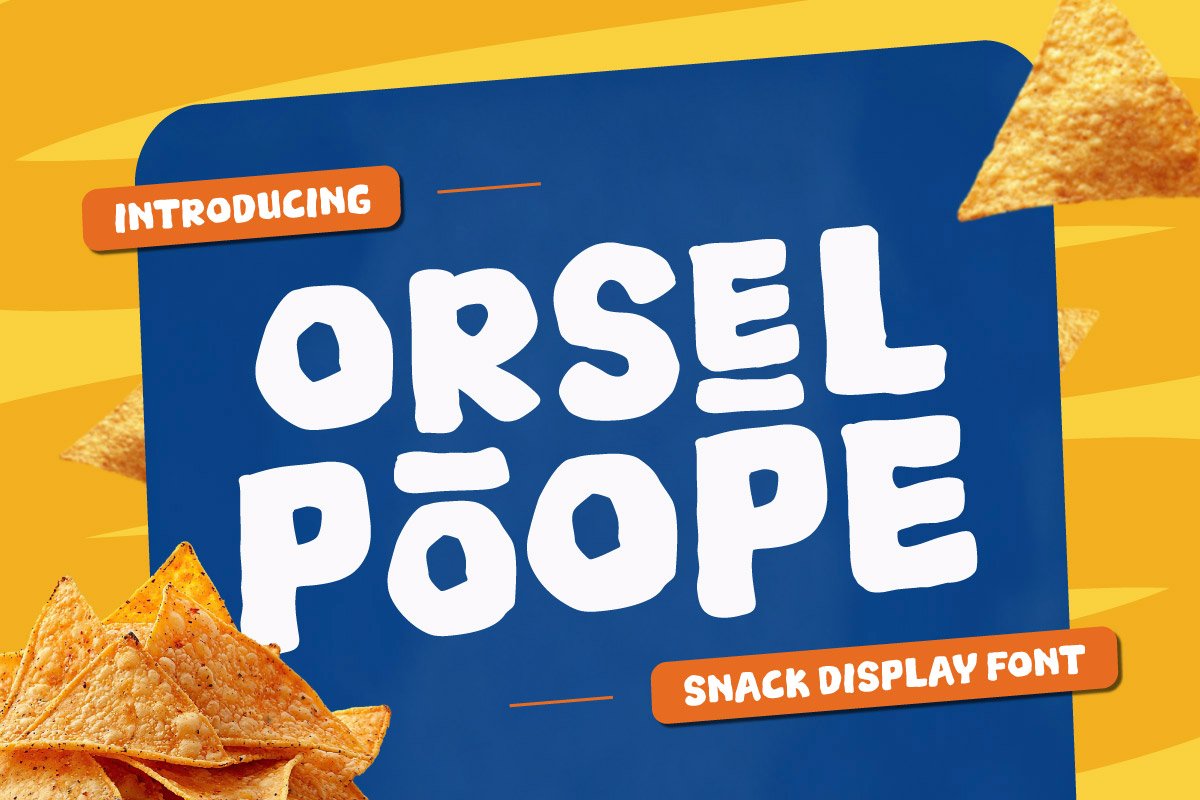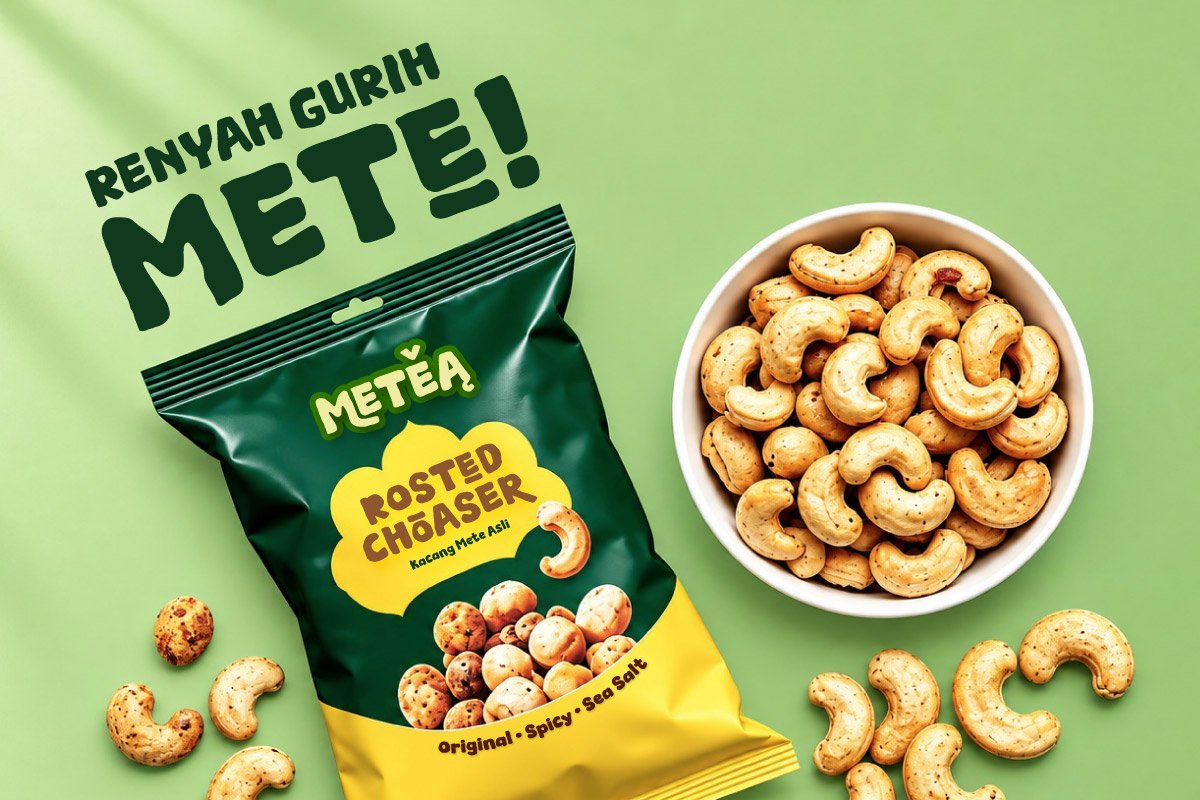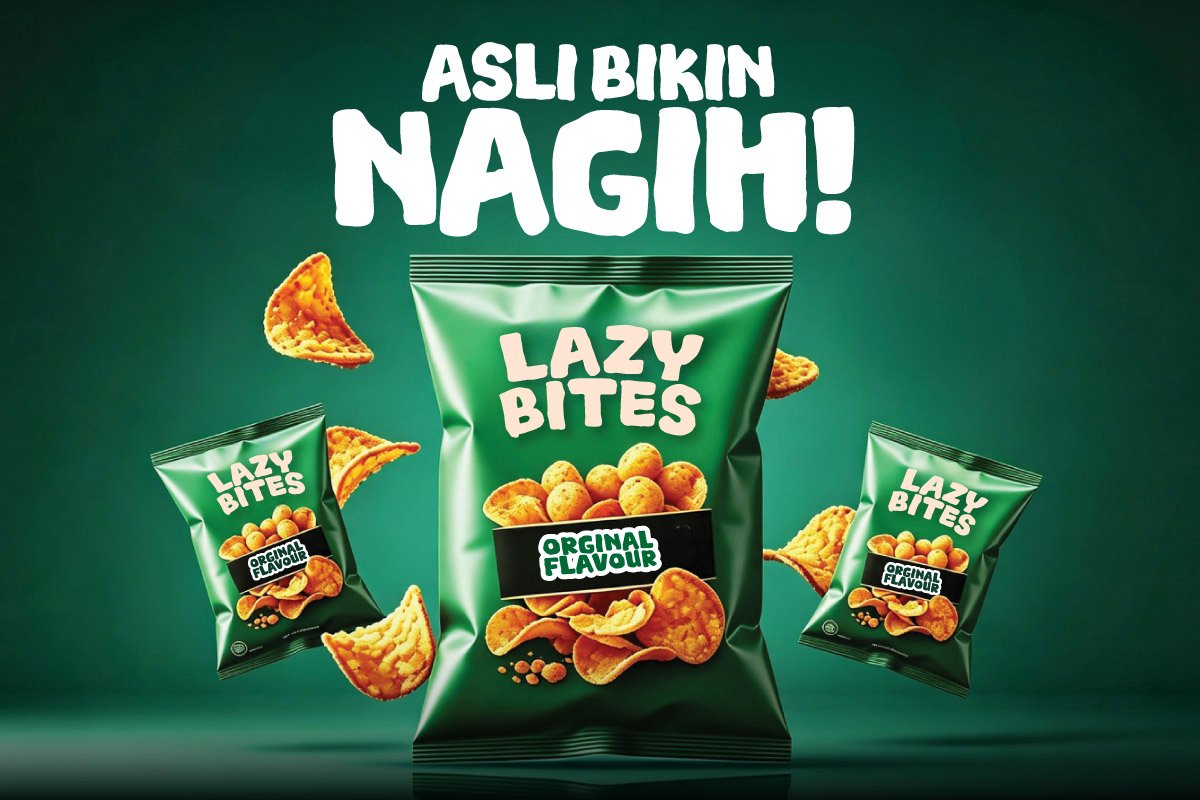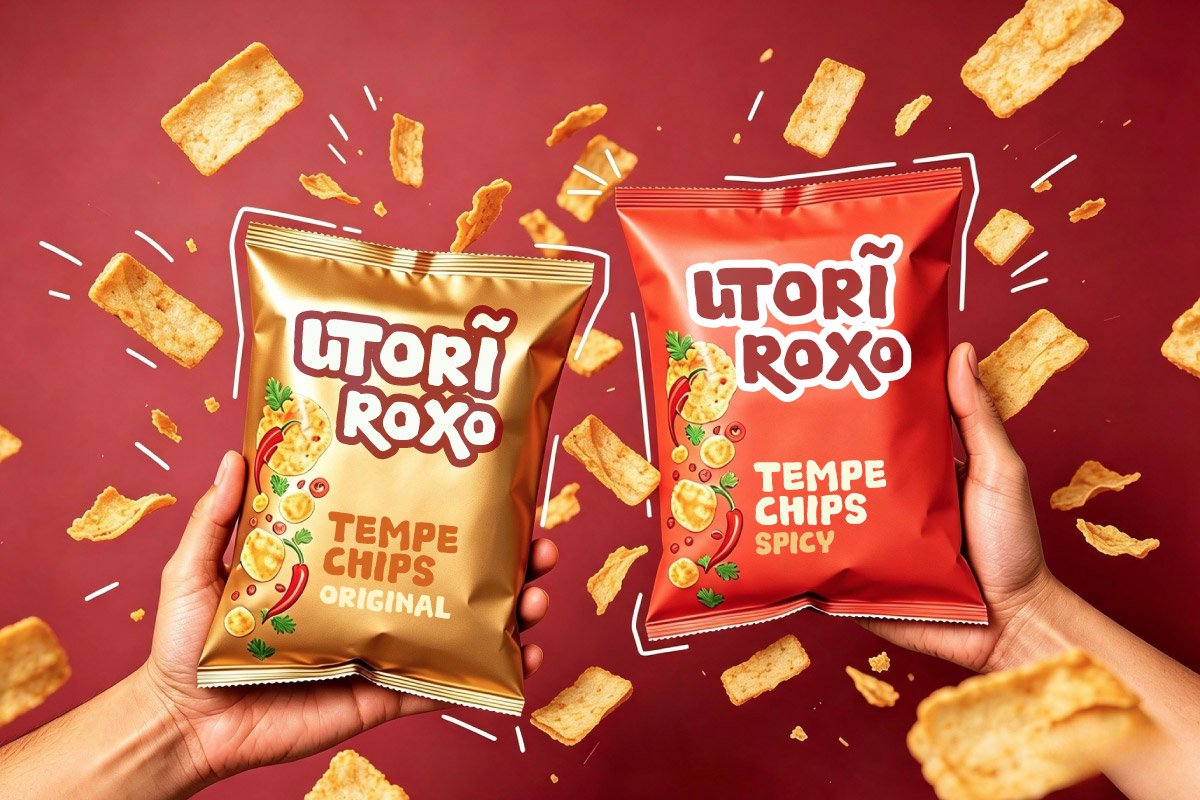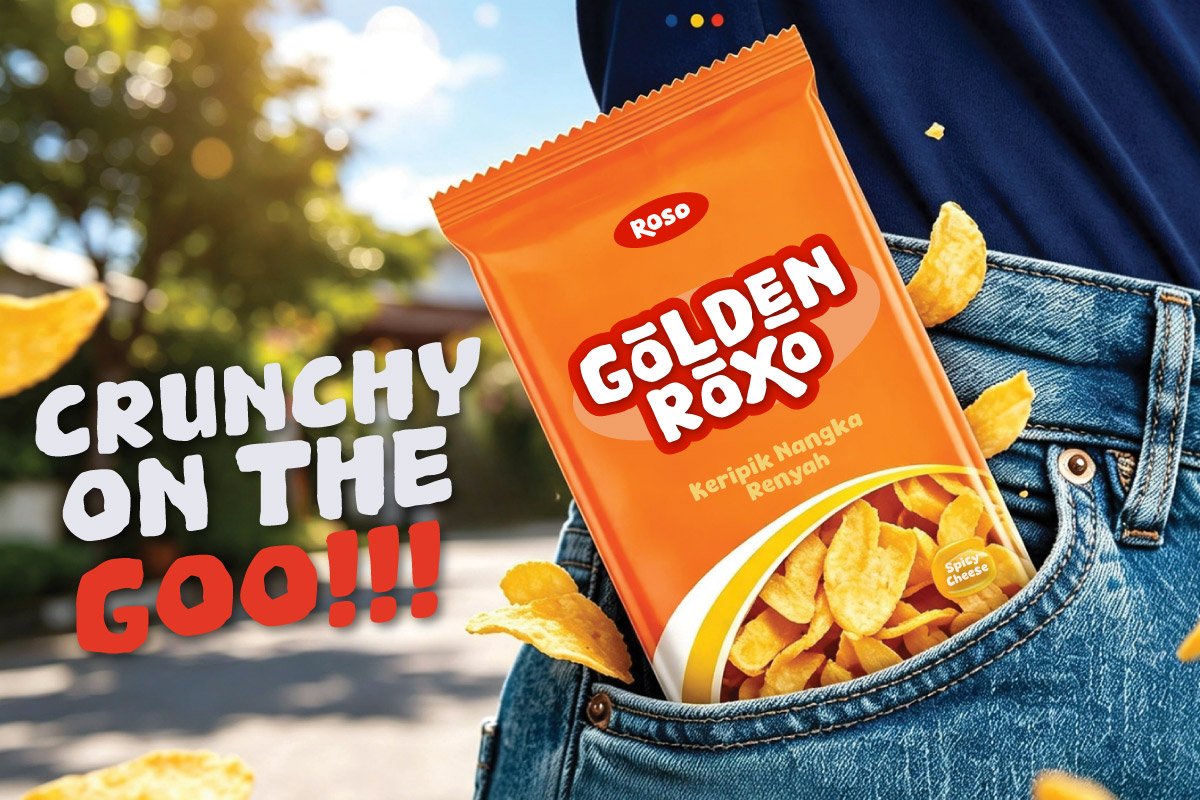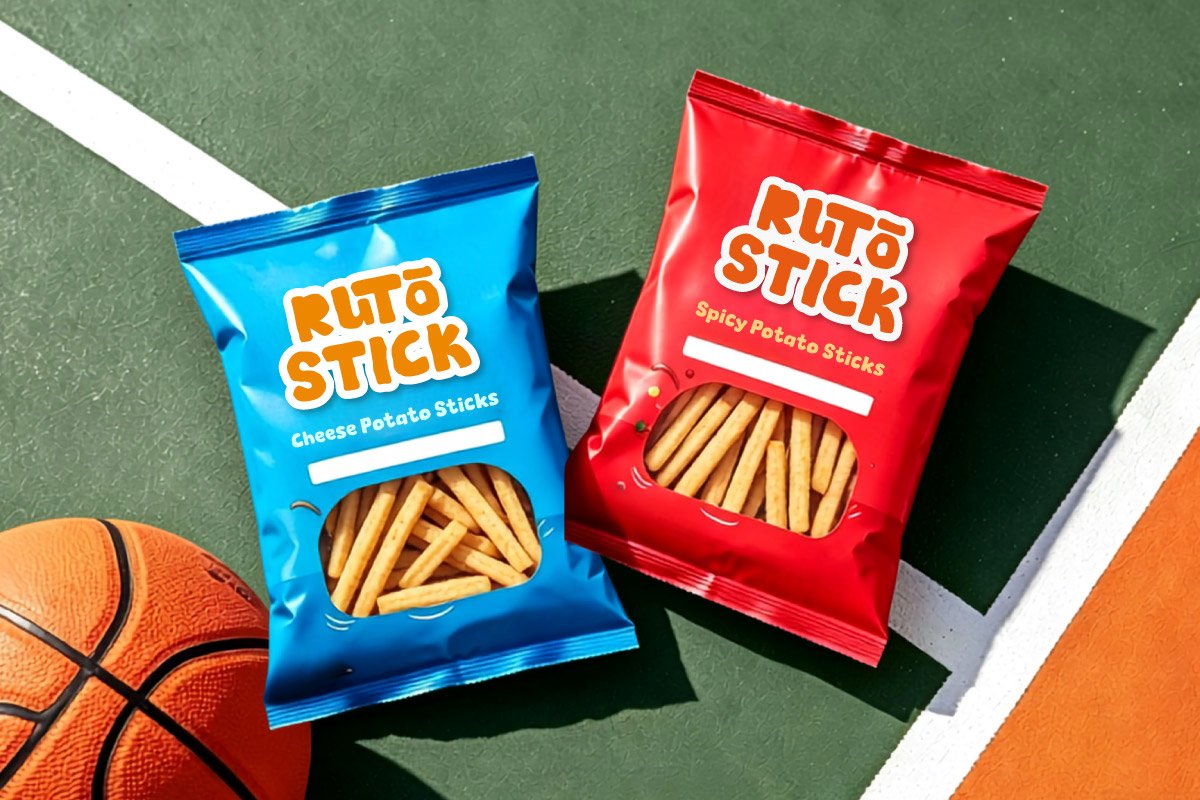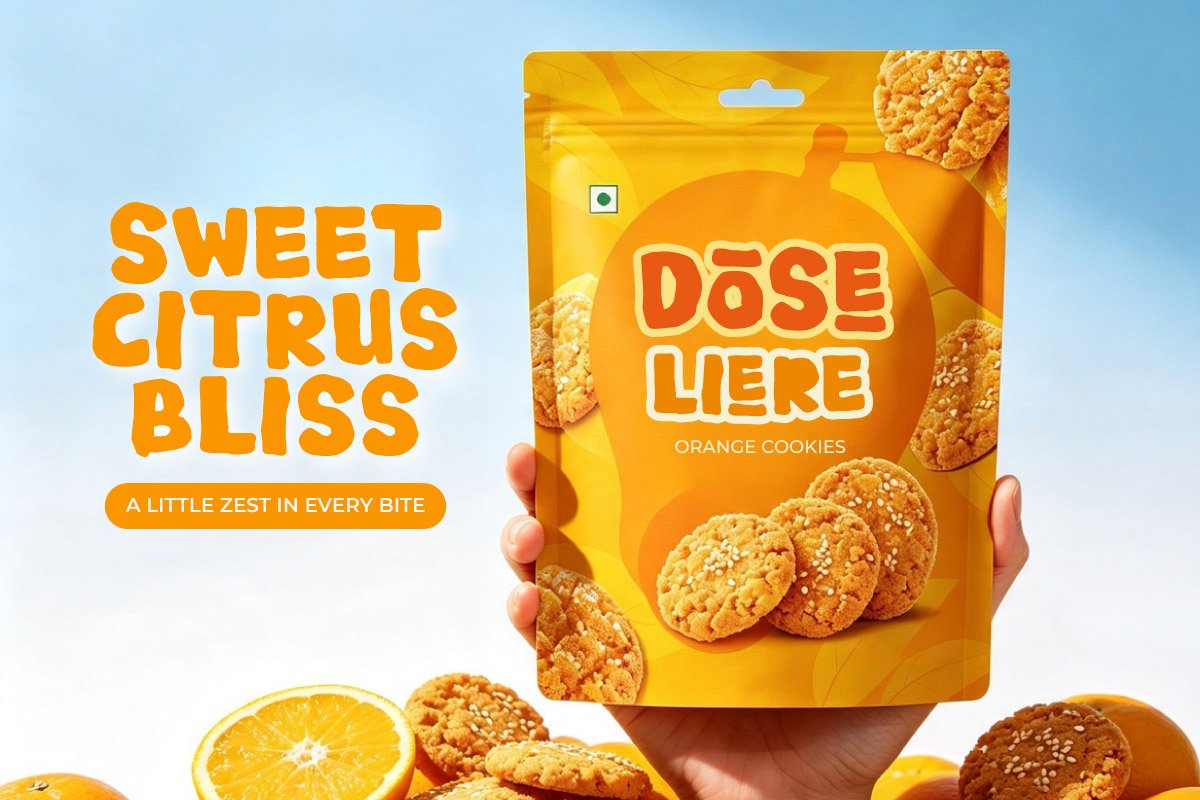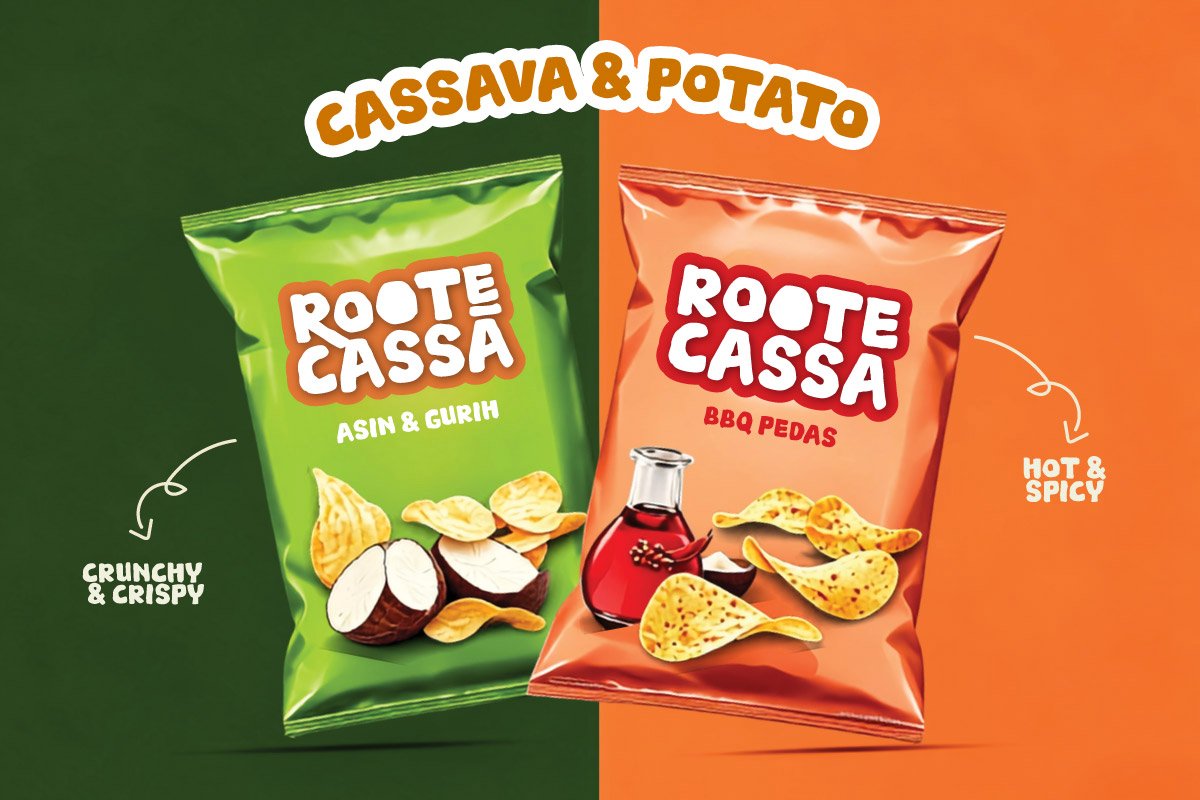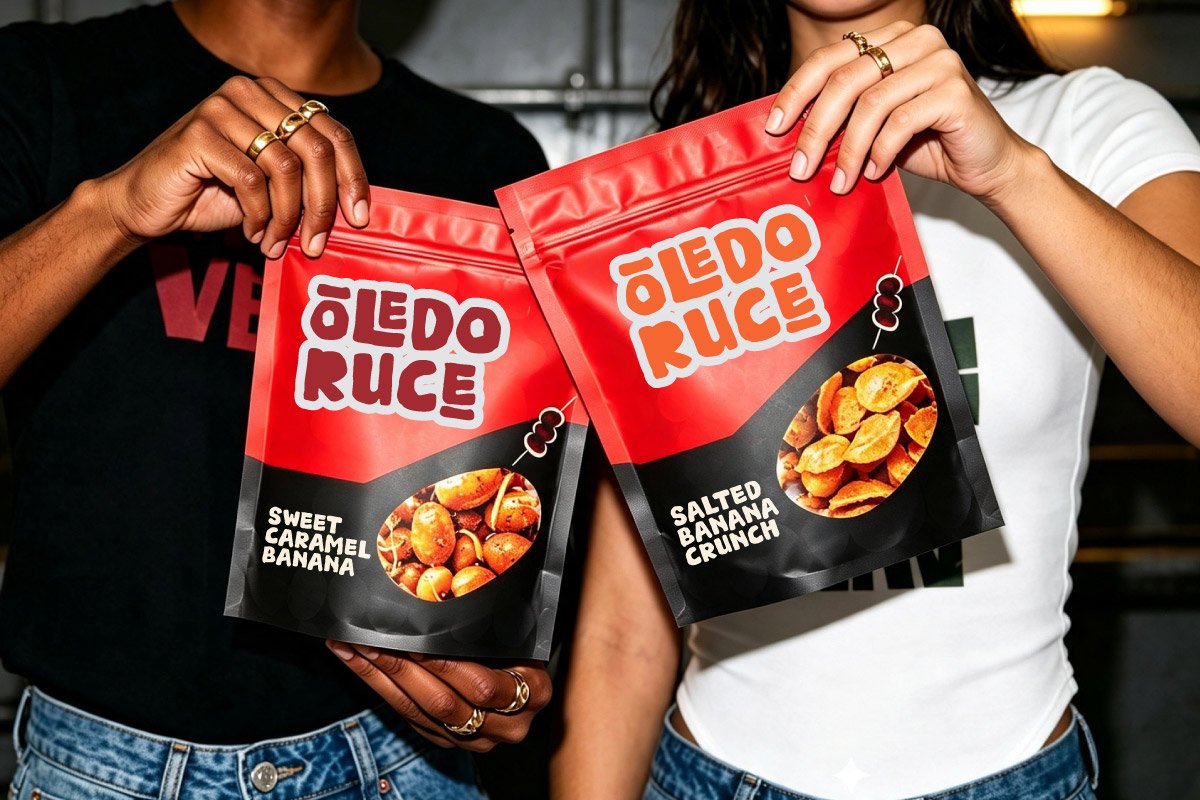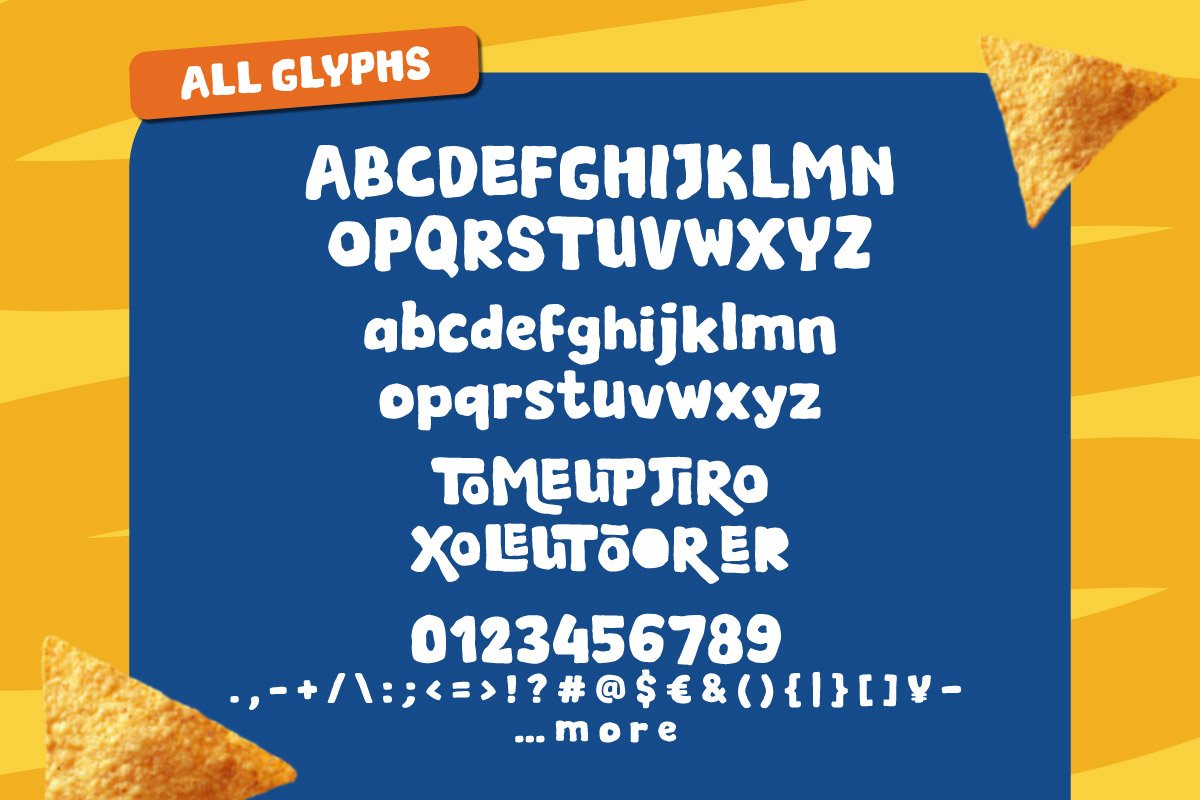
- Orsel Poope – Snack Display Font
Orsel Poope – Snack Display Font is a bold, chunky, and playful display font created to make food headlines and product designs instantly stand out. Its thick, expressive letterforms bring a fun and energetic personality to snack brands, packaging, and retail visuals.
Orsel Poope works especially well for snack packaging, food branding, pouches, foil packaging, supermarket advertising, and promotional materials. Its eye-catching style helps product names, headlines, and promotional messages become more visible across packaging and digital campaigns.
Perfect for snack brands, packaged goods, convenience food, food advertising, labels, posters, menus, retail campaigns, and social media content. Orsel Poope adds a bold, friendly, and appetizing look to modern food and FMCG designs.